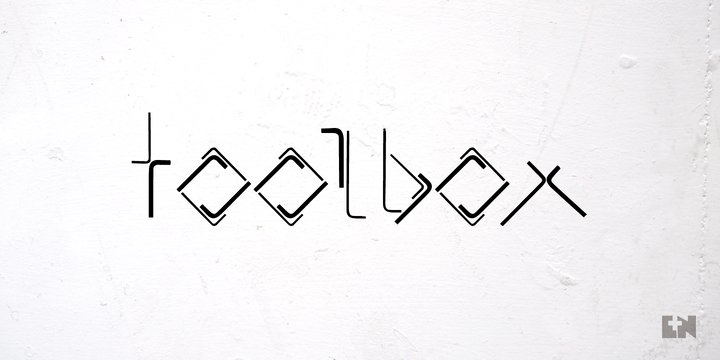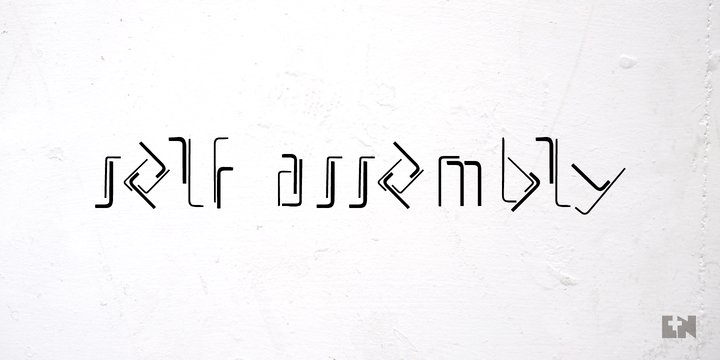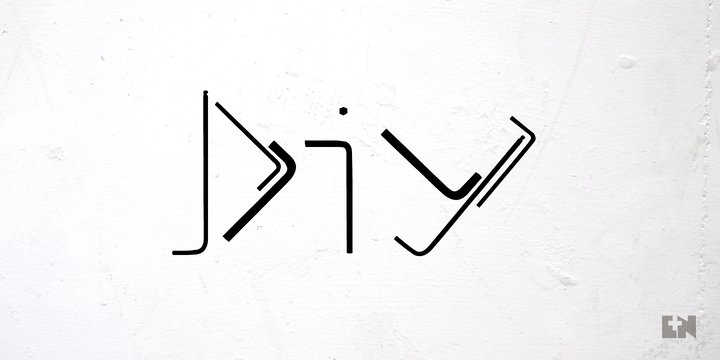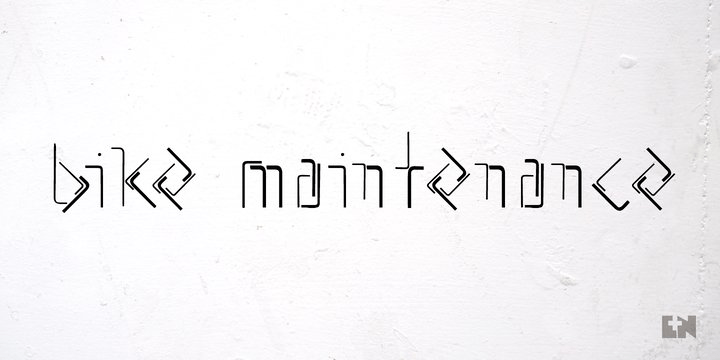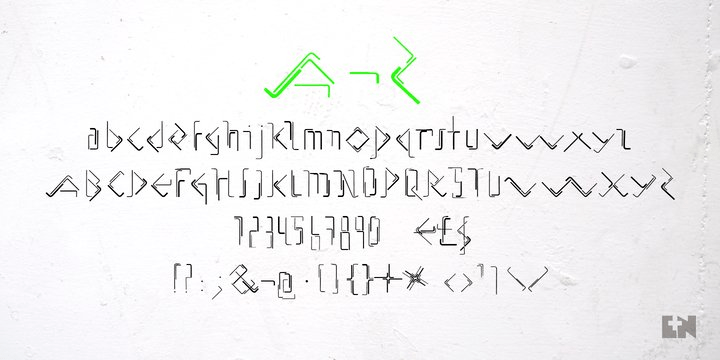
Allen Keys
This typeface was made up by combining playfully assembling allen keys to shape individual characters.
Rummaging through the toolbox recently, I was surprised by how many allen keys I had from years of assembling flat-pack furniture. After some experimenting with the keys to make up individual letters I was struck by their graphic quality. The typeface is defined by the slim, right-angled shape of the allen key; creating a geometrical, yet playful font. The typeface is suitable for feature headings and logos.